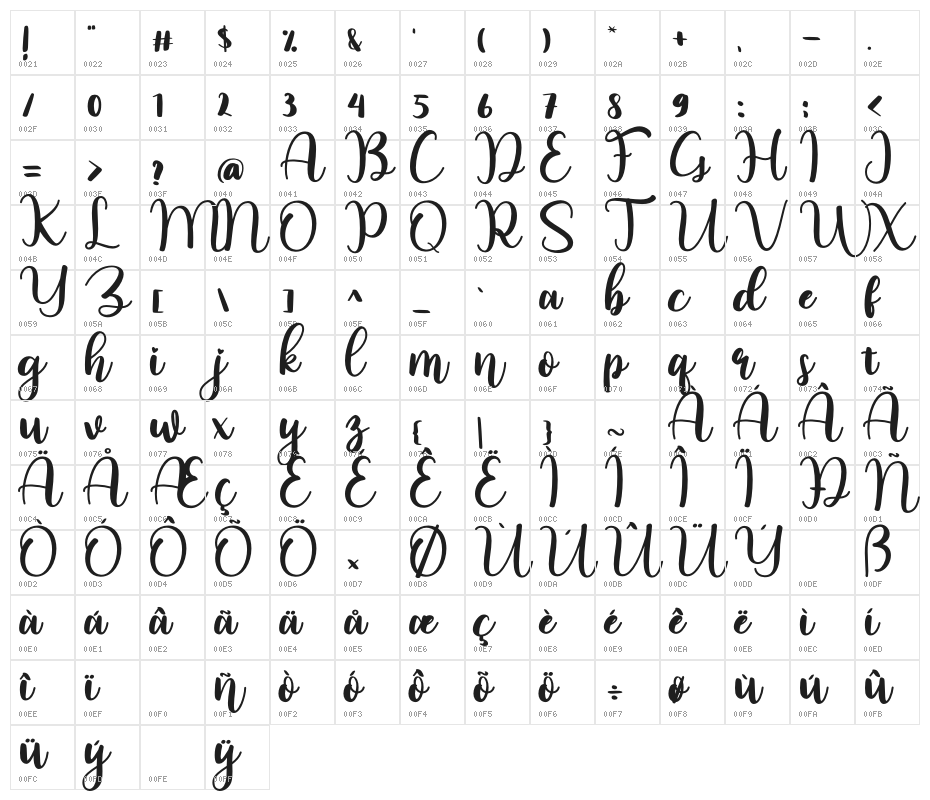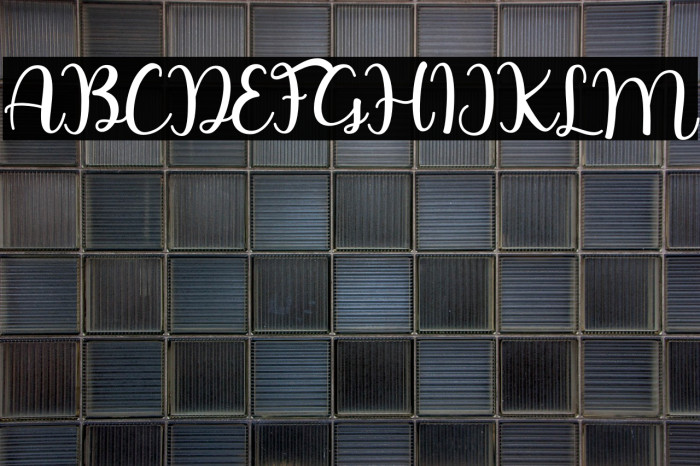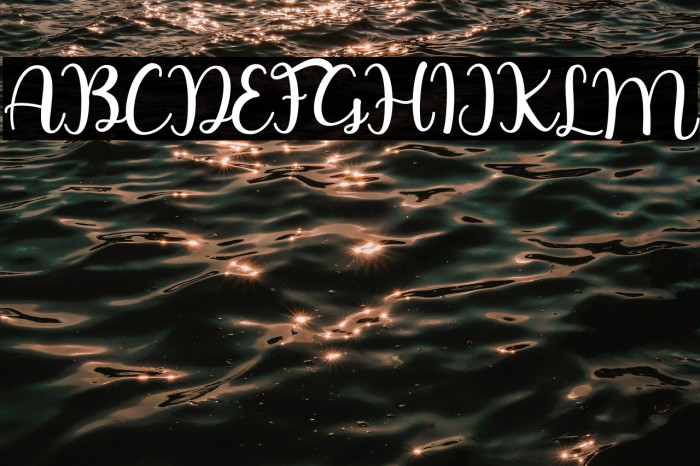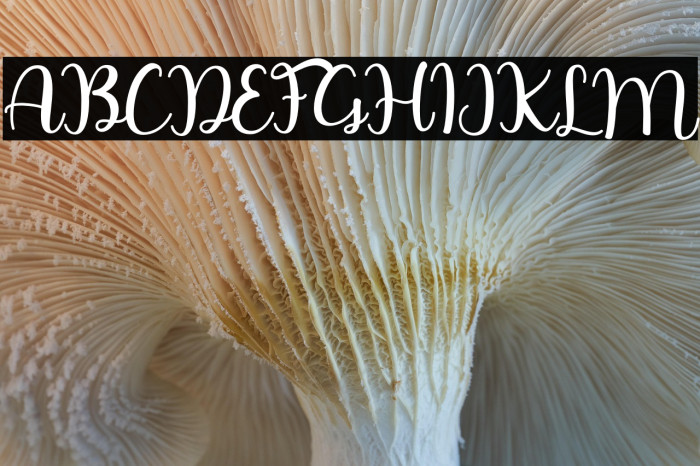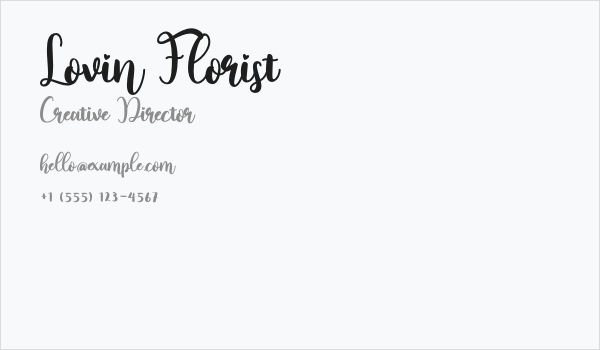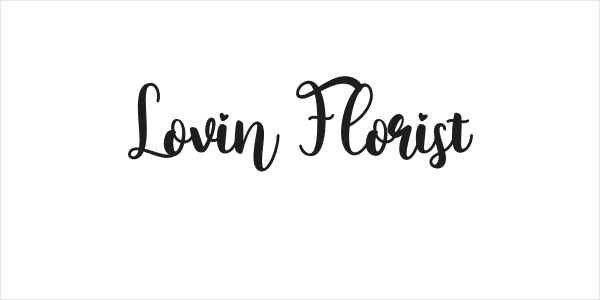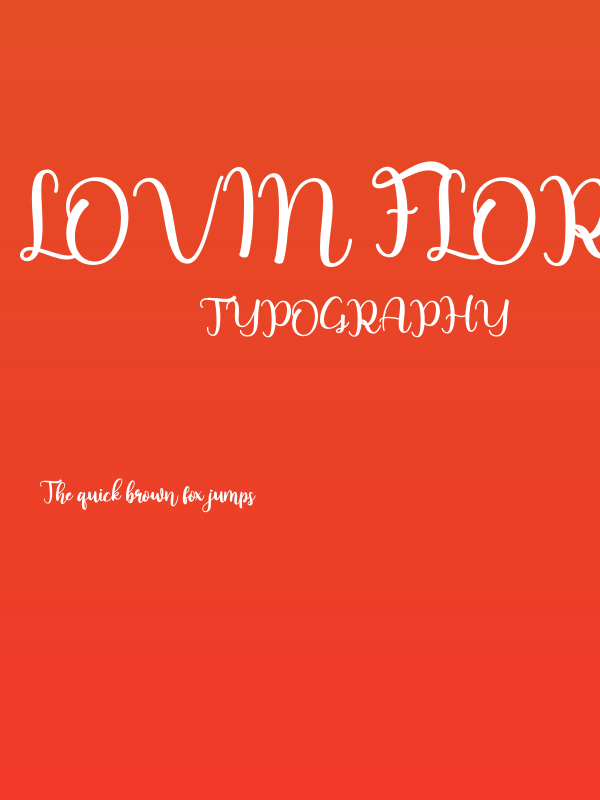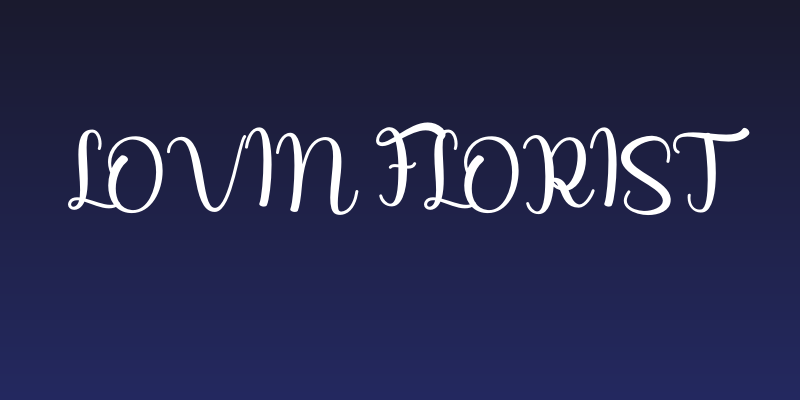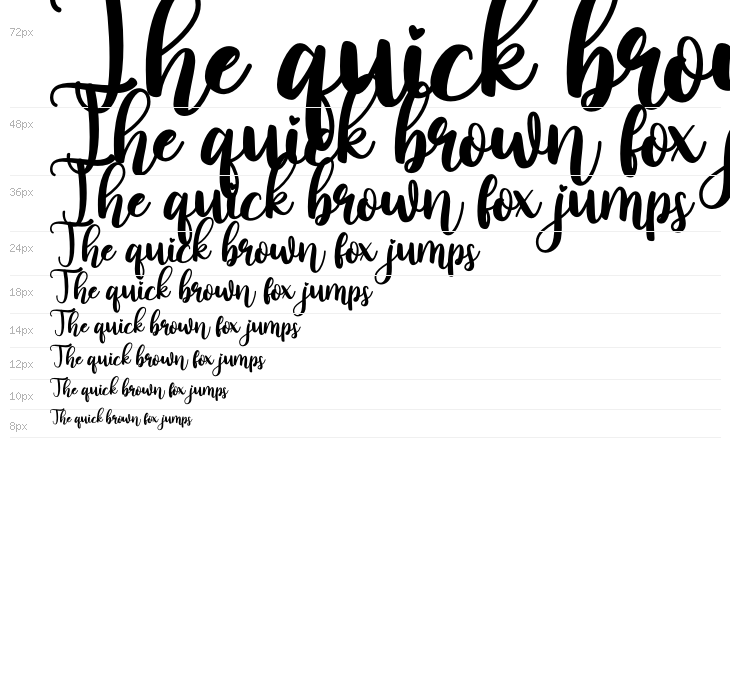
Lovin Florist Font
Lovin Florist Description
This font features a playful and elegant script style with a handwritten touch. The uppercase letters are gracefully connected, while the lowercase letters exhibit a charming flow with some letters having unique loops and swirls. The numbers are bold and maintain the whimsical style of the letters. Special characters are creatively designed to match the overall aesthetic. This font exudes a sense of warmth and friendliness, making it suitable for projects that require a personal and inviting feel.